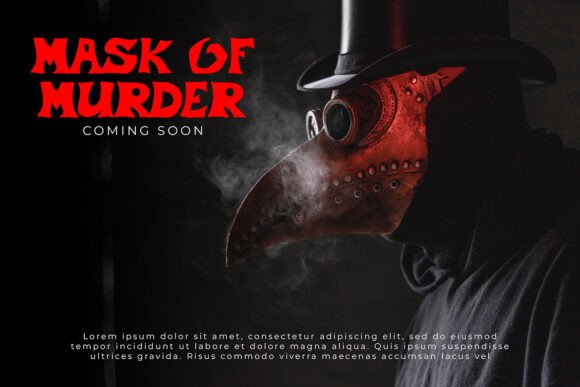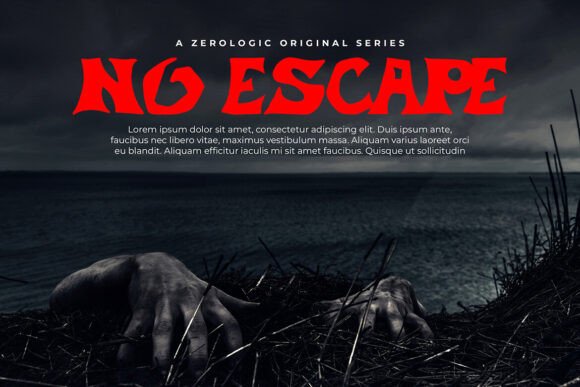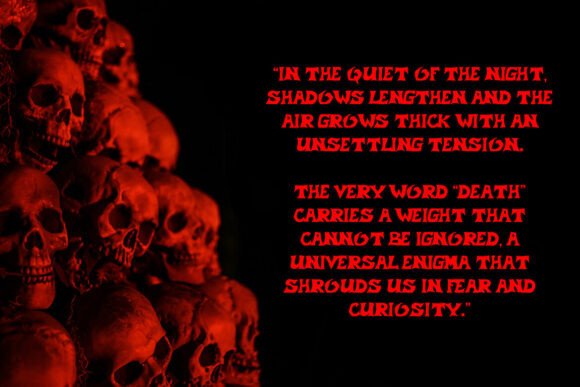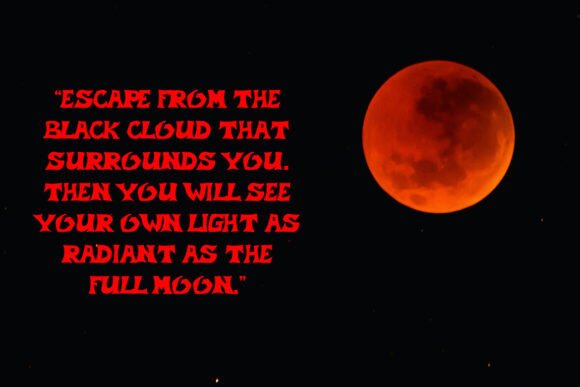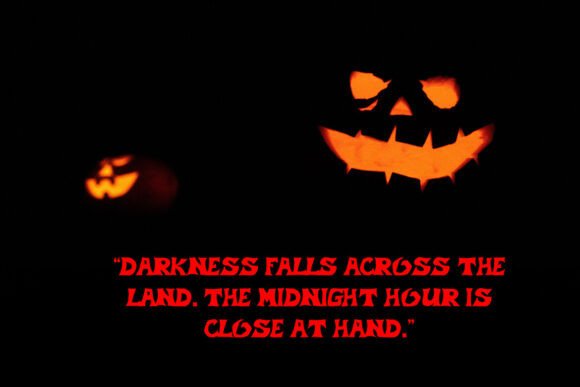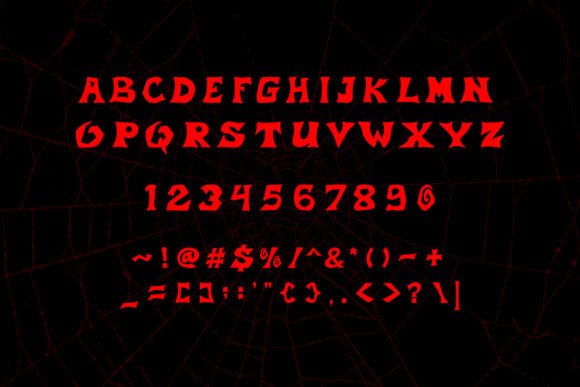
Introduction to Midnight Batcave Font
As a designer, you know the thrill of that one perfect font that elevates your creative project to the next level. It’s that moment when the whole design comes together, and you can’t help but feel a sense of pride and accomplishment. For me, that moment came when I stumbled upon the Midnight Batcave Font – a spooky, Halloween-inspired font that adds an eerie charm to any design.
With its sharp edges and mysterious vibe, the Midnight Batcave Font is the perfect addition to your design resource arsenal. Whether you’re creating a Halloween-themed poster or a spooky website, this font will transport your audience to a world of bats and darkness. And the best part? It’s a free download, available for high-quality use with a transparent background, making it a valuable resource for designers.
So, if you’re looking to add some Halloween magic to your next creative project, look no further than the Midnight Batcave Font. Trust me, your designs will thank you.
Key Features of Midnight Batcave Font
- Unique, high-quality design resource for creative projects, offering a mysterious and dark aesthetic.
- Perfect for use in gothic, horror, or mystery-themed designs, adding an air of sophistication and intrigue.
Honest Review: Midnight Batcave Font
I recently stumbled upon the Midnight Batcave Font and I must say it’s a great addition to any design resource. The free download option makes it accessible to designers of all levels.
The font itself is high quality and perfect for any creative project that needs a mysterious and dark vibe. The transparent background makes it easy to use in various design scenarios.
- ✨ Unique and eye-catching design that sets it apart from other fonts.
- ✨ Perfect for projects that require a dark and mysterious atmosphere.
- ✨ Free download option makes it accessible to designers of all levels.
- ⚠️ Limited font styles and weights, which might be a drawback for some designers.
- ⚠️ May not be suitable for projects that require a more neutral or professional tone.
Overall, I’m impressed with the Midnight Batcave Font and I think it’s a great addition to any design library. With a little creativity, it can be used in a variety of creative projects.
Tips for Getting the Most Out of Midnight Batcave Font
For optimal results, use the Midnight Batcave Font in bold or italic styles to add emphasis to your text. You can also experiment with different font sizes and combinations to create a unique visual effect.
The Midnight Batcave Font is perfect for:
- Creating bold and edgy headlines
- Designing futuristic and sci-fi themed projects
- Adding a touch of mystery and intrigue to your designs